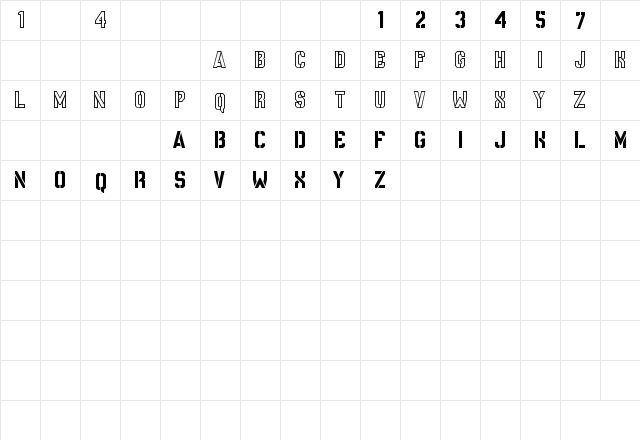
NCAA Army 2015 Regular Font Preview
NCAA Army 2015 Regular
Design Context for NCAA Army 2015 Typeface
NCAA Army 2015 has the no-nonsense character of military stencilling and tactical signage, projecting authority and directness.
Designed for tactical branding, military-inspired apparel, action game UI, and utility-focused signage.
Font Pairing: Use alongside a condensed or geometric sans for supporting copy — keep the pairing bold, functional, and free of ornament.
Pro Tip: Use NCAA Army 2015 at medium-to-large sizes where its utilitarian structure can be appreciated — the character detail gets lost at small sizes.